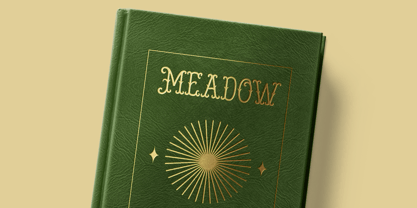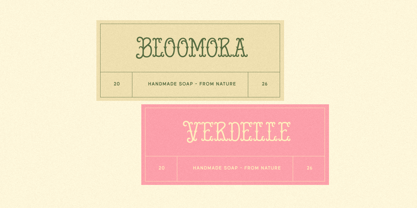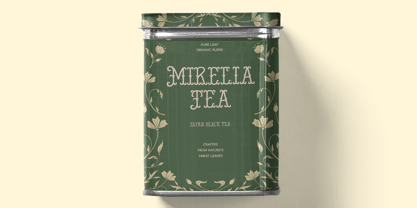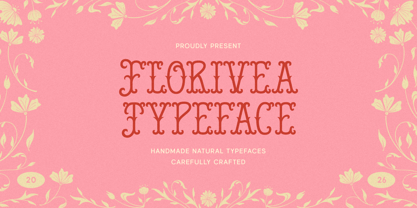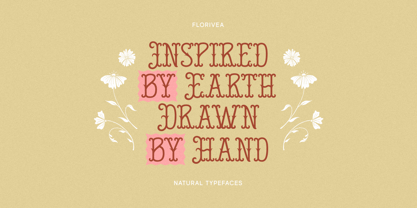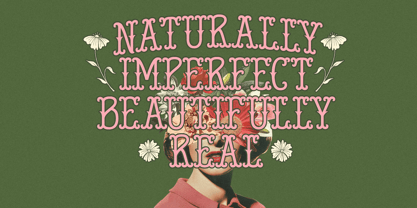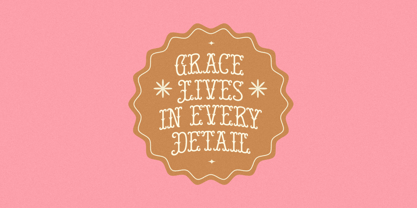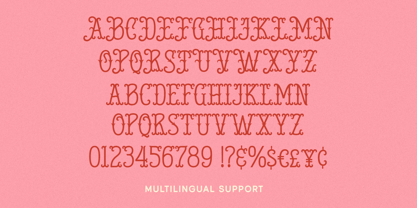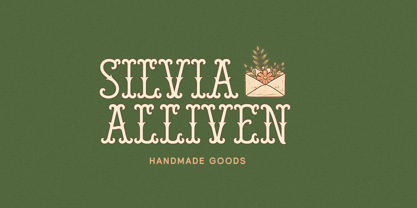
Florivea
by Letterhend
The Florivea Font Family was designed by Hendry Juanda and published by Letterhend. Florivea contains 1 styles. More about this family
Floriva Typeface feels like a sweet little throwback wrapped in soft petals and sunshine. With its curvy serif shapes, playful details, and slightly quirky rhythm, this font brings a gentle retro charm that’s both cute and eye-catching. It has that handmade, storybook vibe—like something you’d find on vintage packaging, cozy café menus, or dreamy branding with a touch of nostalgia. Features : Uppercase & lowercase Numbers and punctuation Alternates & Ligatures Multilingual Support PUA encoded
Designers: Hendry Juanda
Foundry: Letterhend
Letterhend Studio is a type foundry based in Yogyakarta, Indonesia and was established on 2016.